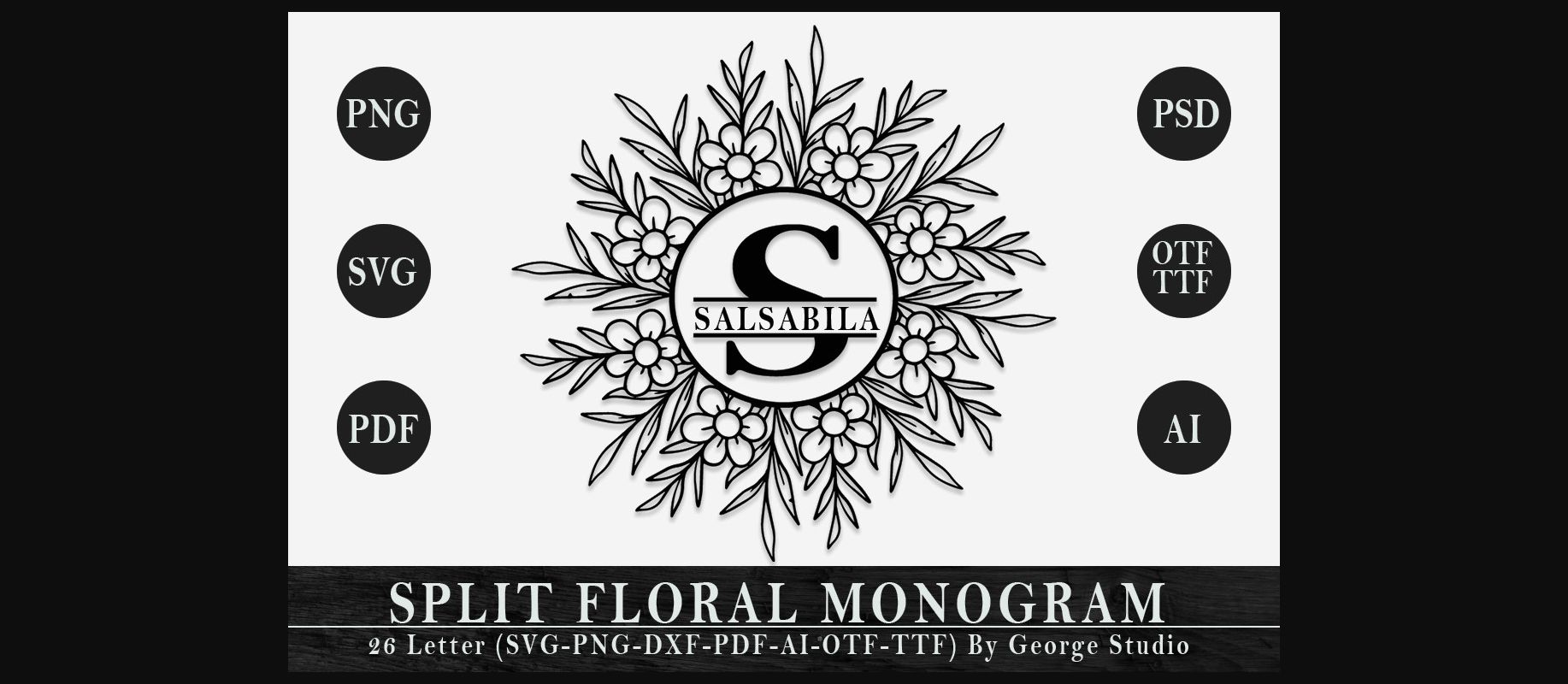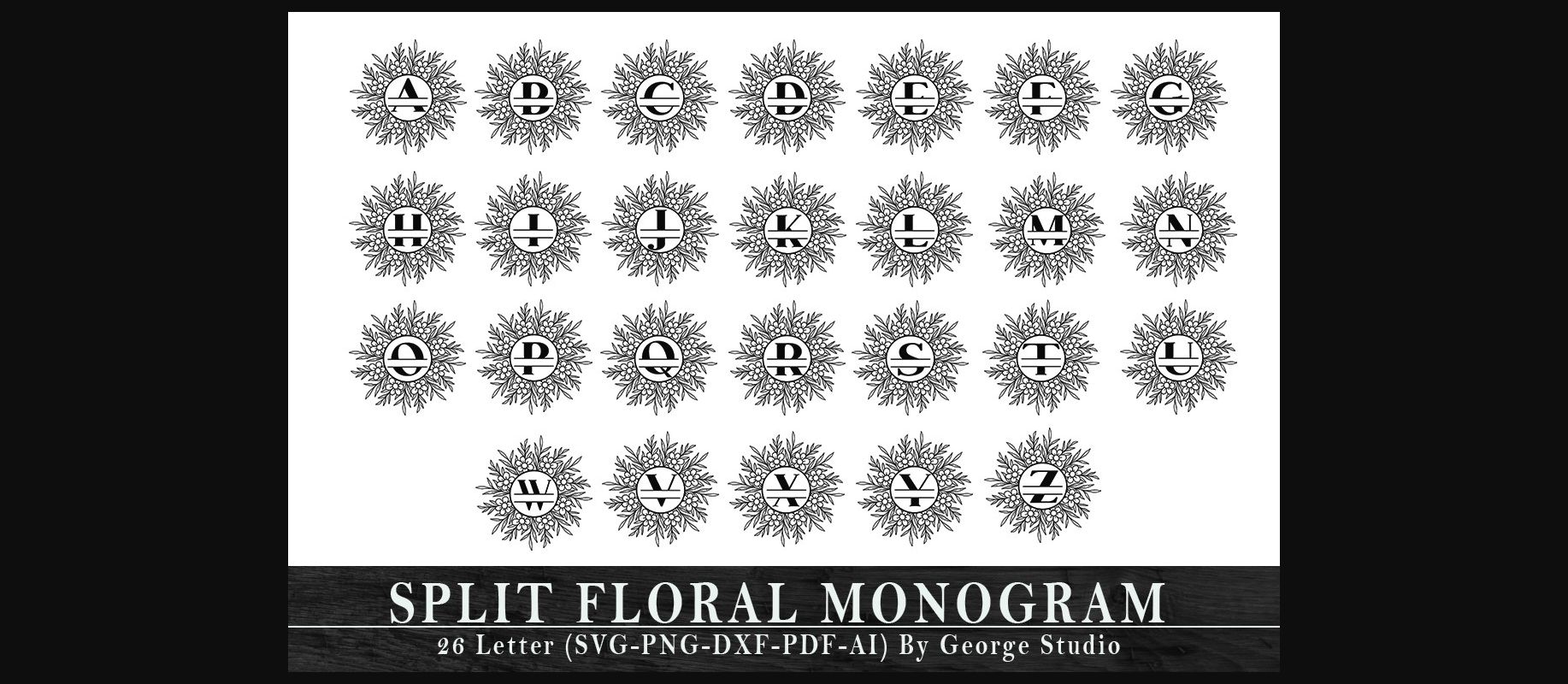
Salsabila Monogram is a modern daisy decorative font suitable for designing T-shirts, tote bags, hats, stickers, logos, cards, quotes, and more! It also works great for classy wedding-related designs.